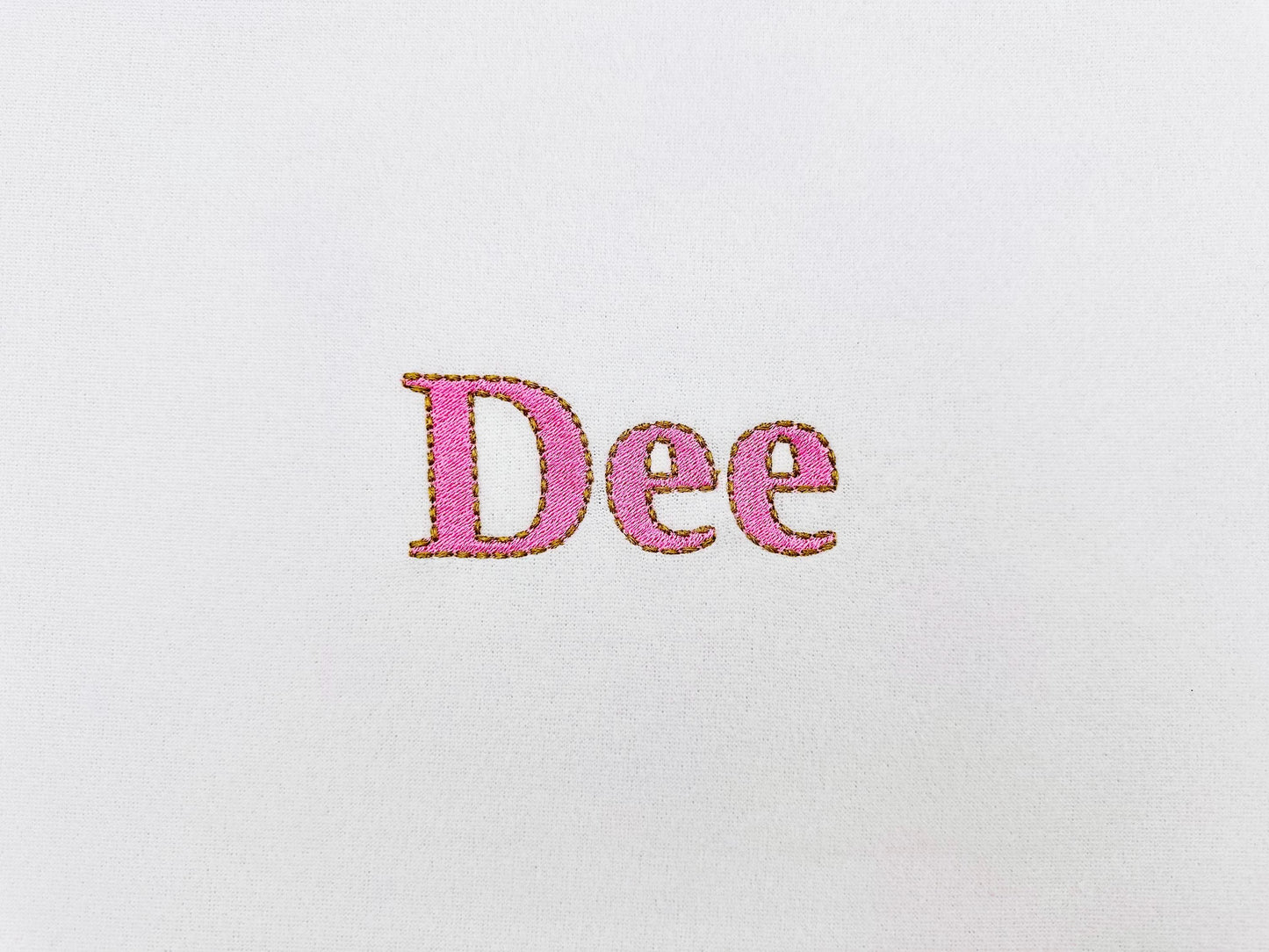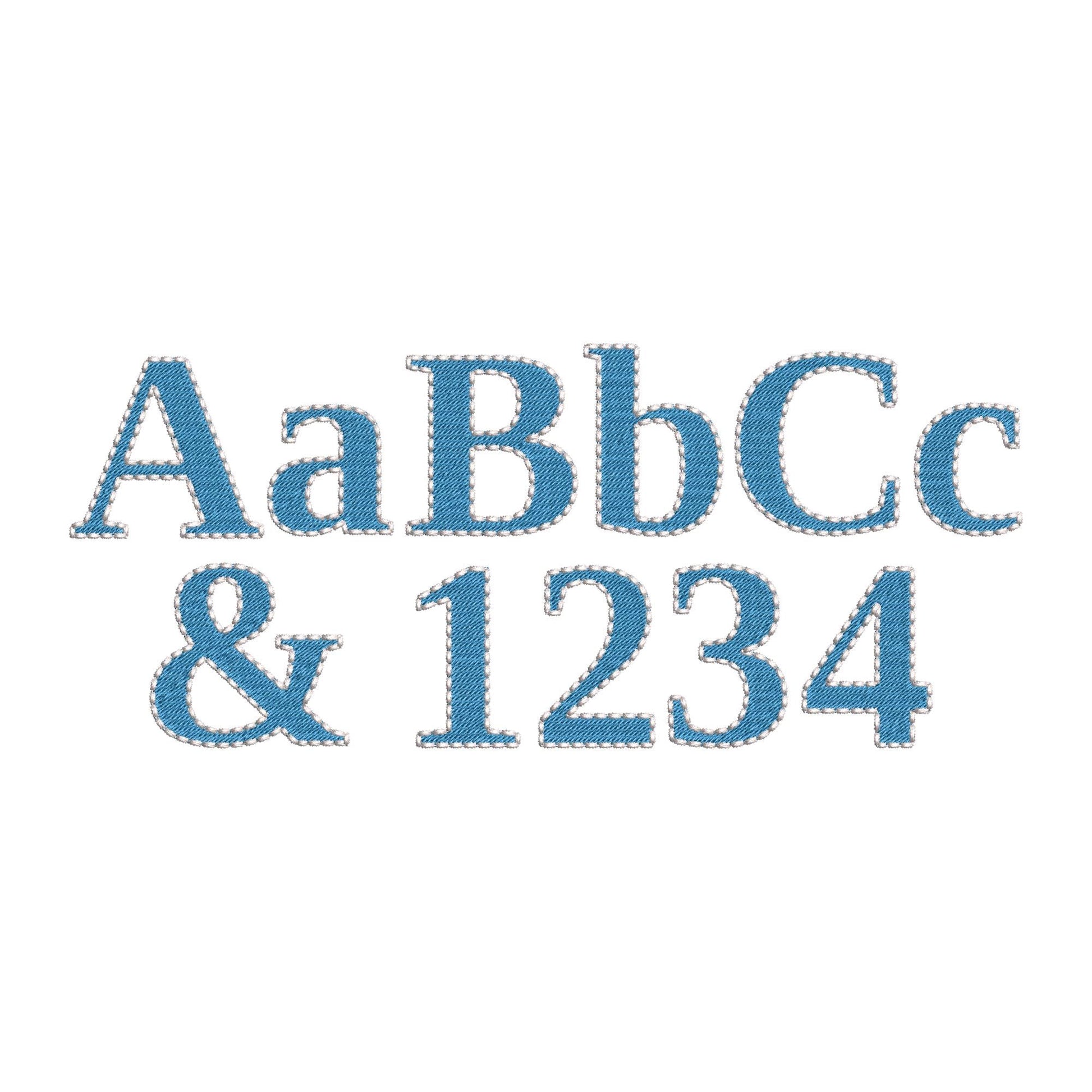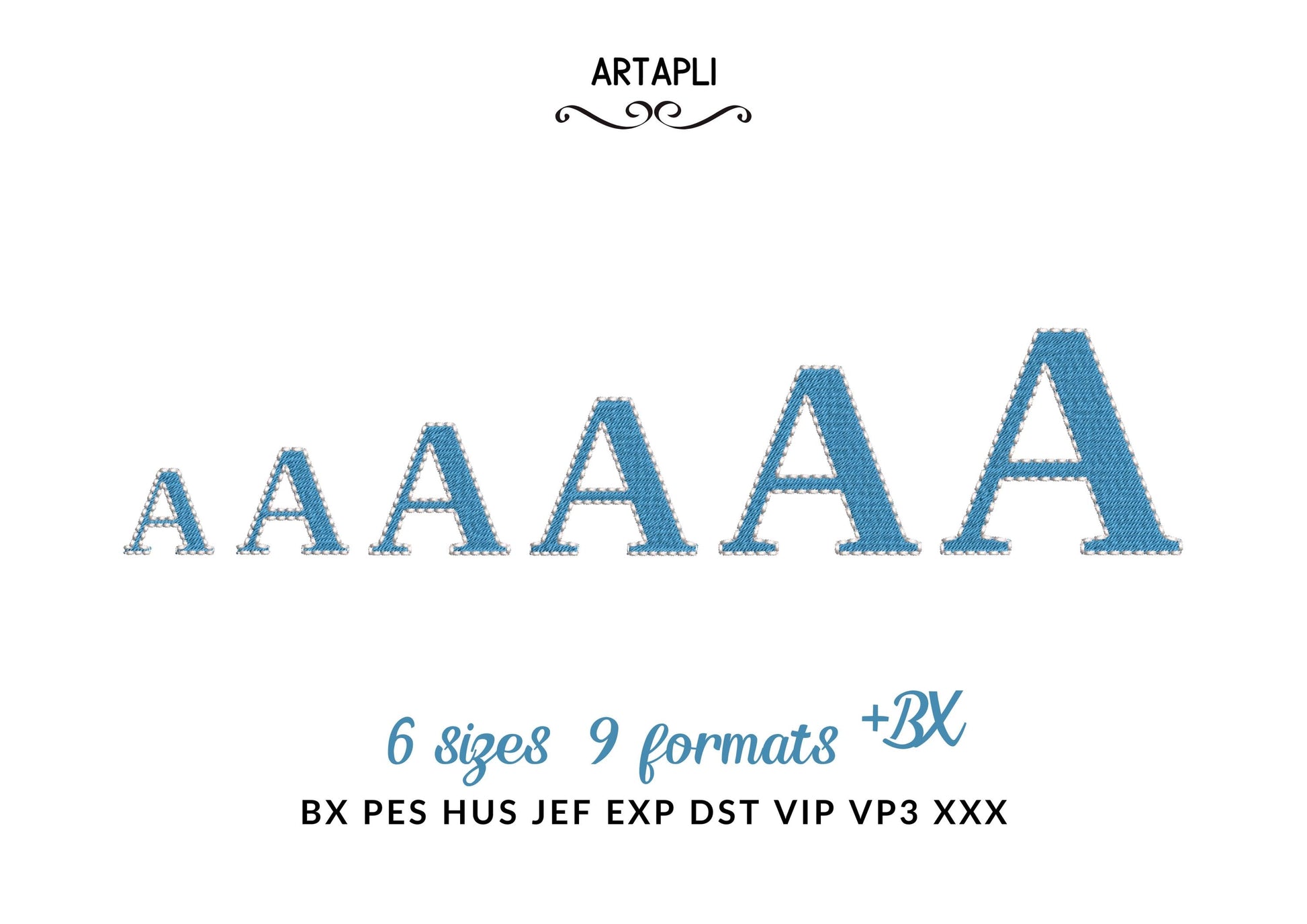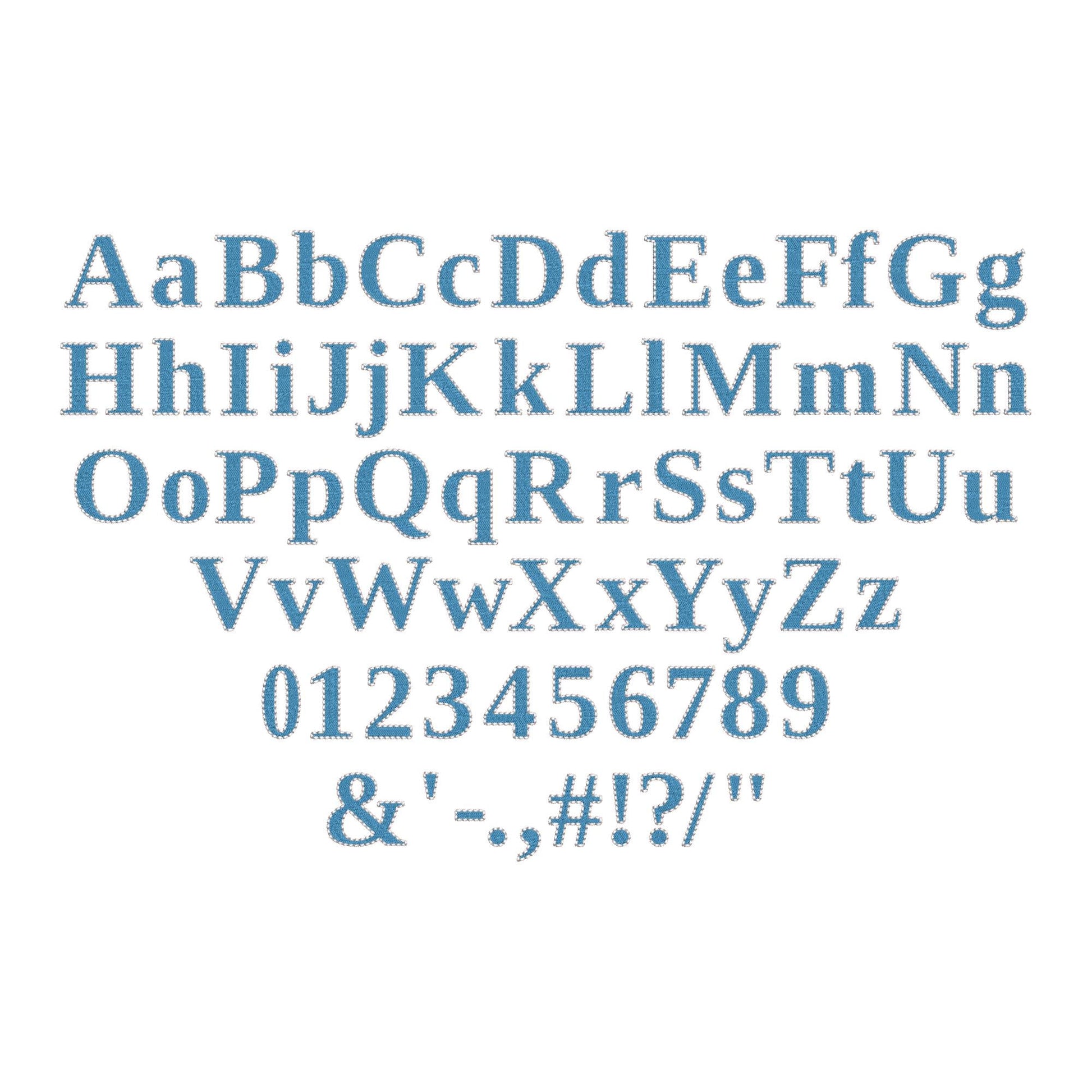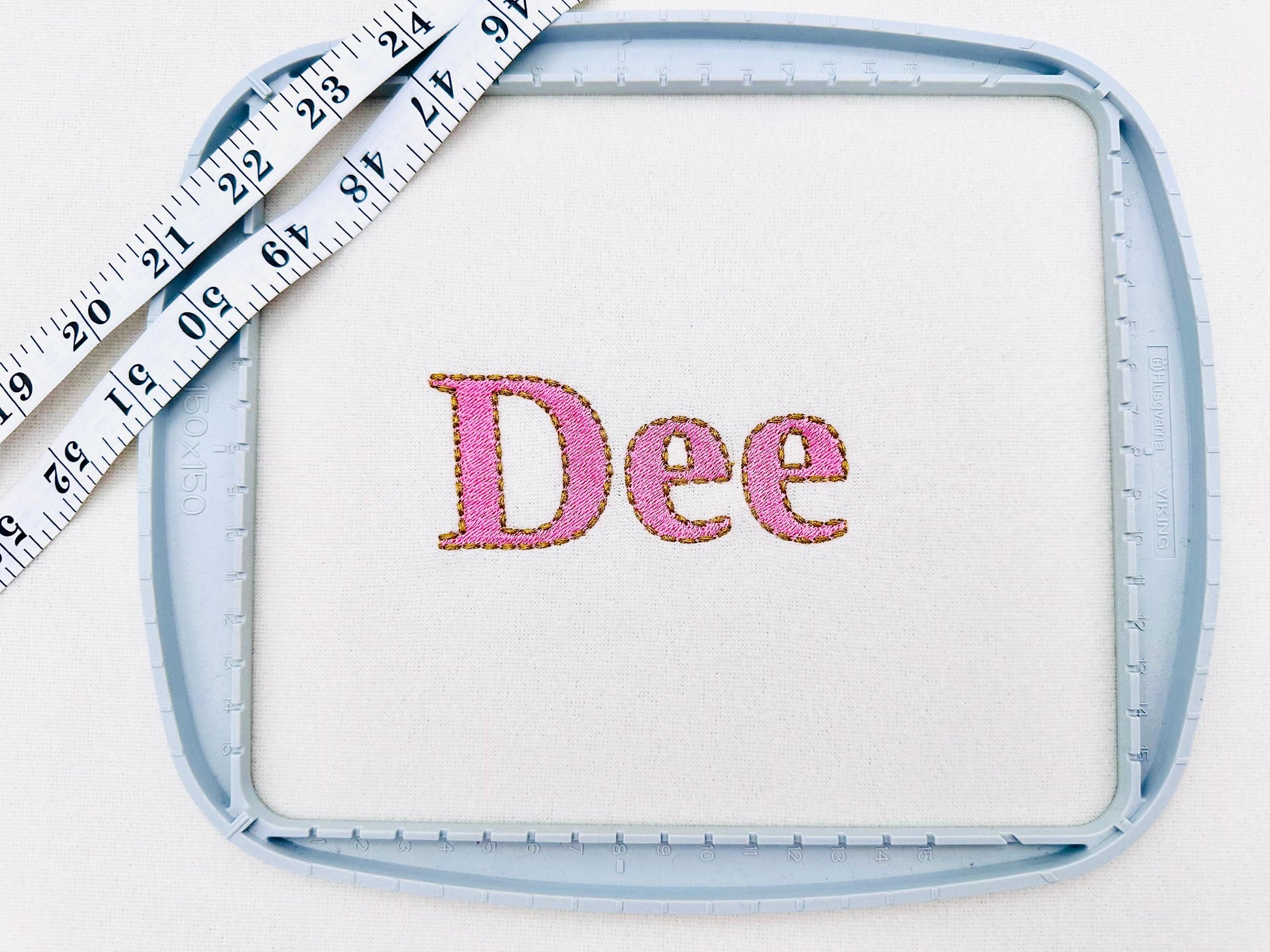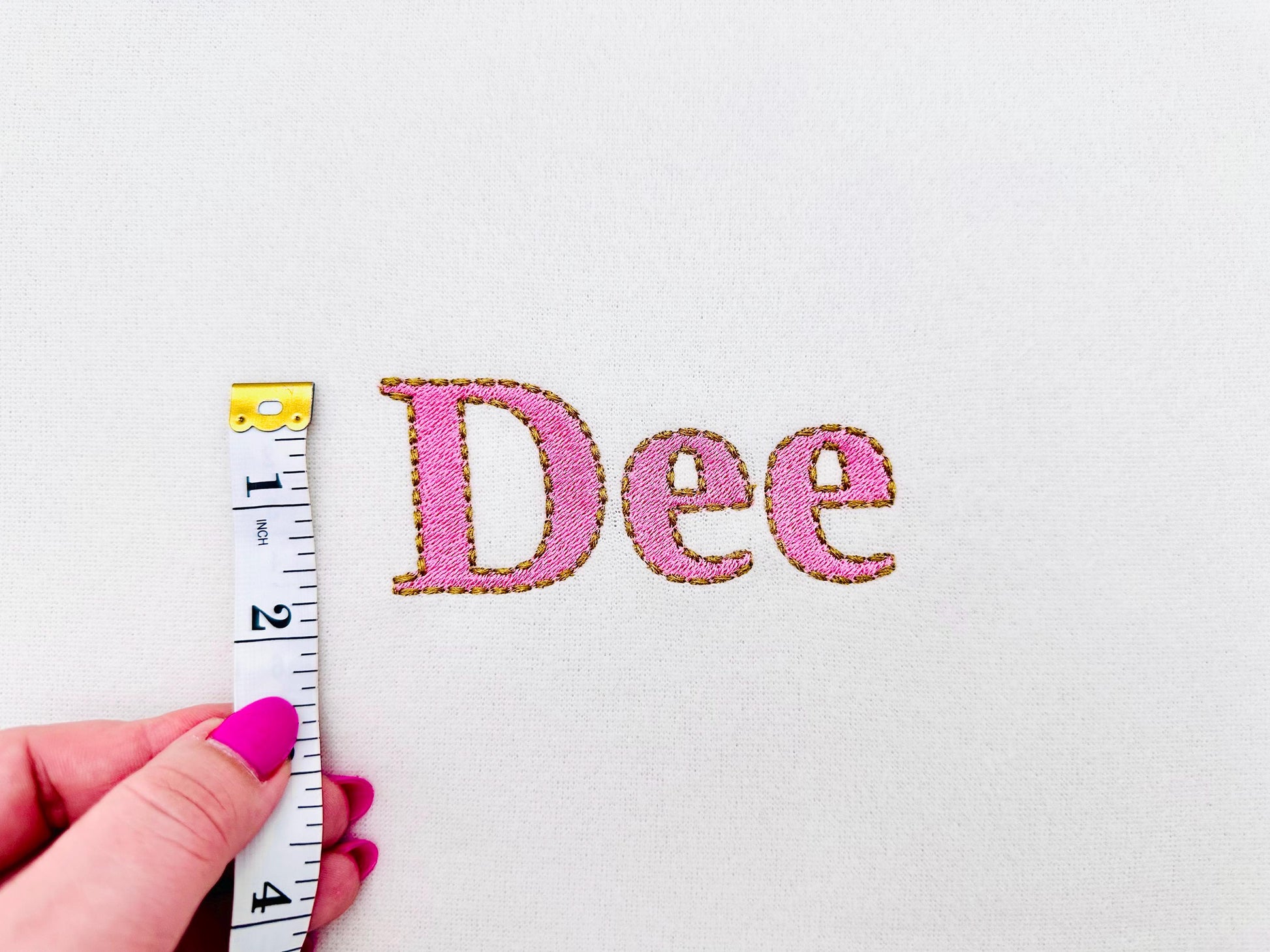
Fill stitch Font Tiffany
Or click to open the linkA smooth fill stitch font with a delicate decorative outline for a clean, elegant look. Lovely for small names and monograms on clothes, towels and gifts.
The letters come in six sizes: 1.1, 1.4, 1.7, 2, 2.4 and 2.9 inches. Includes uppercase and lowercase letters, numbers 0-9 and punctuation.
- Tiffany fill stitch font: uppercase and lowercase letters, numbers 0-9 and punctuation
- 6 letter sizes, 1.1 to 2.9 in